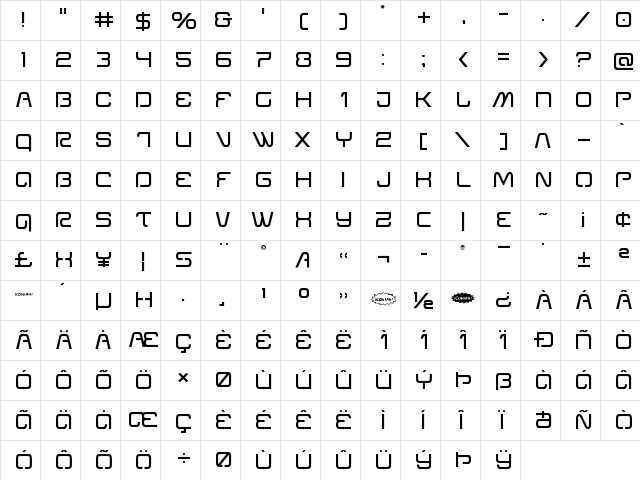
Miracle Mercury Title Regular Font Preview
Miracle Mercury Title Regular
Design Context for Miracle Mercury Title Typeface
Miracle Mercury Title offers clean, dependable letterforms without strong stylistic allegiance, making it a practical choice for designers who need flexibility.